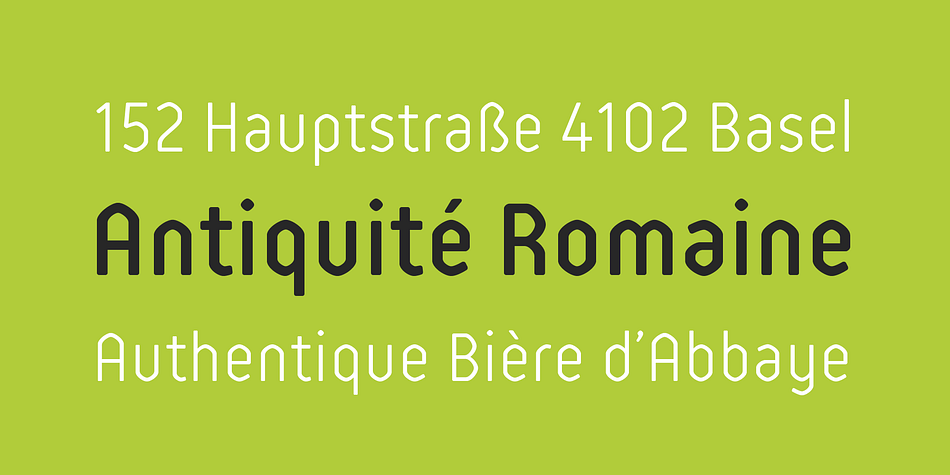
Reso
Reso is a sans serif font family. This typeface has five styles and was published by JCfonts.
Reso is an experimental geometric typeface built from a broken arc module. Its minimal and contemporary letter shapes makes it well suited for logo design, headers and short texts.
Five weights are available in OpenType format. The fonts include some standard OpenType features and support for most European languages.